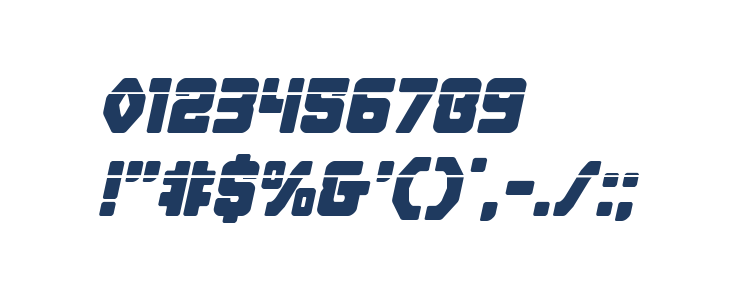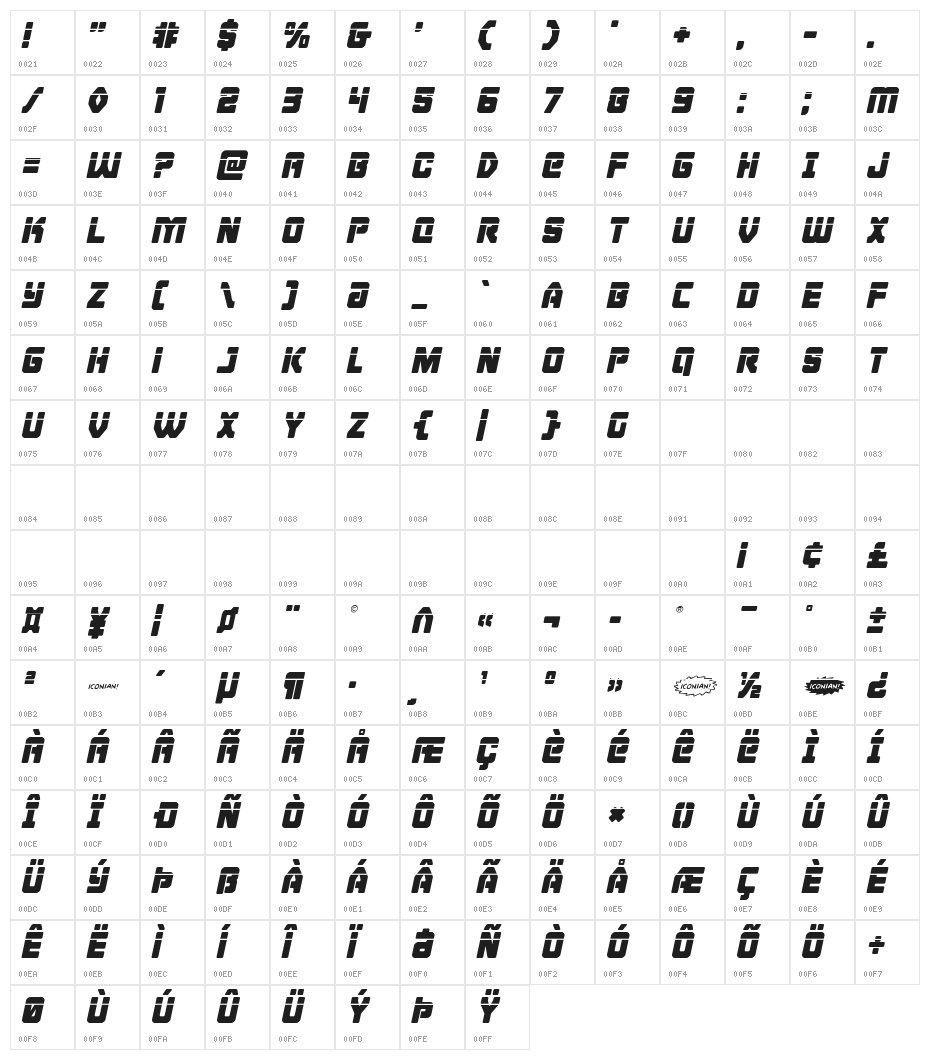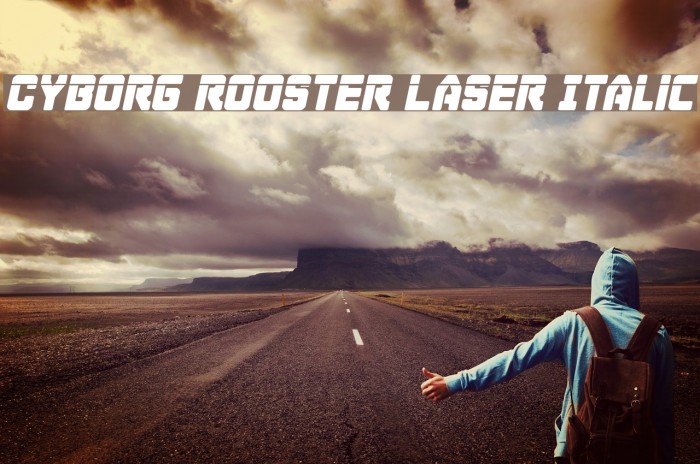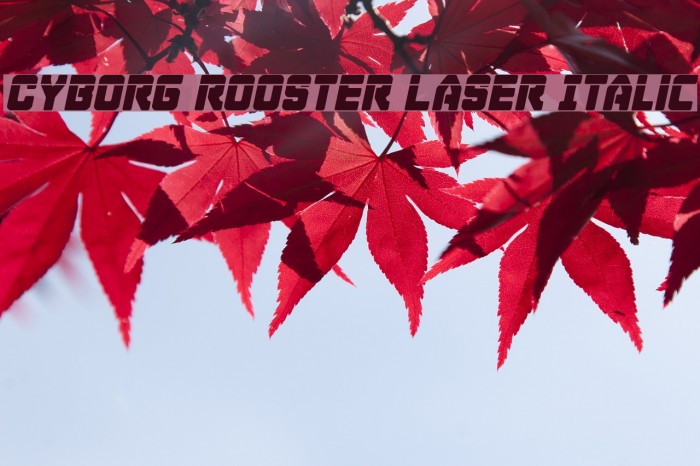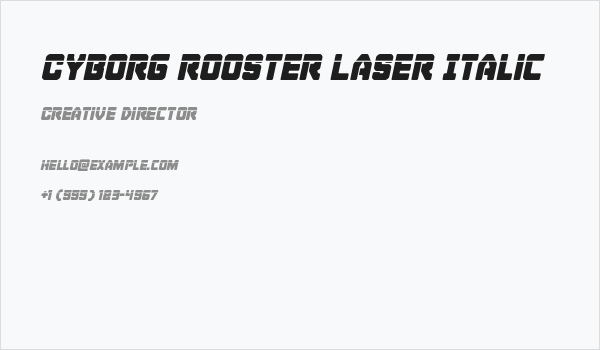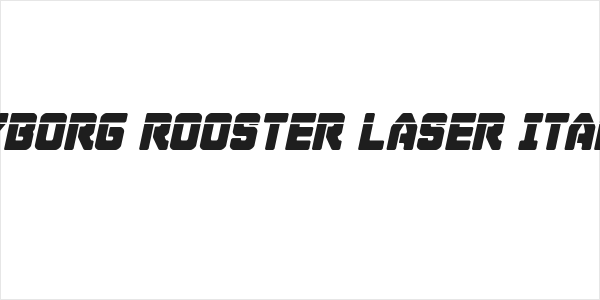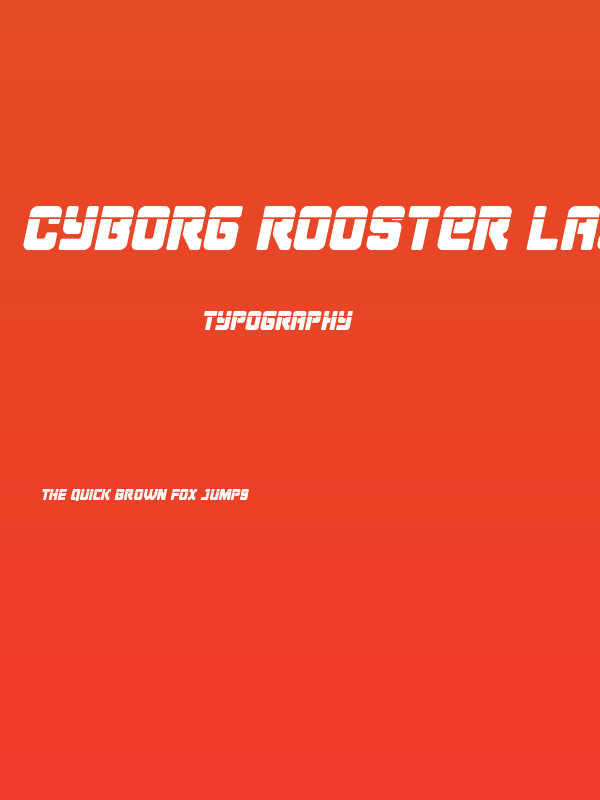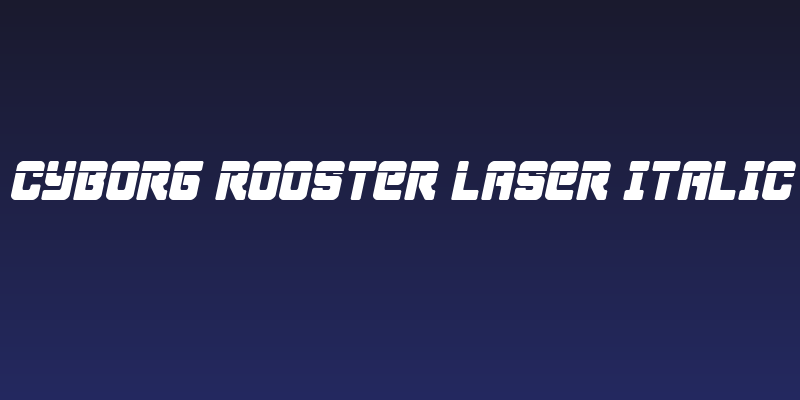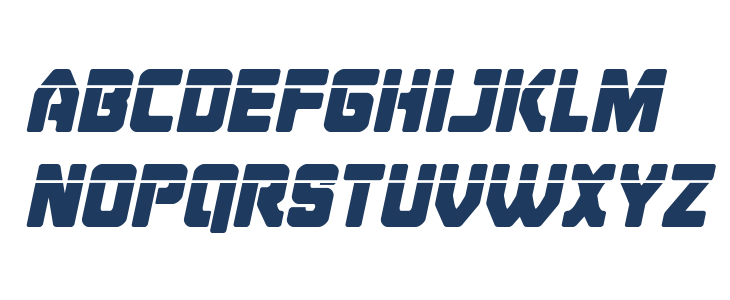
Cyborg Rooster Laser Italic Font
Cyborg Rooster Laser Italic Description
This font features a bold, futuristic design with a strong emphasis on angular, geometric shapes. The characters are italicized, giving a sense of movement and speed. The uppercase and lowercase letters maintain a consistent style, with sharp edges and a slightly condensed form. The numbers and special characters follow the same design principles, ensuring uniformity across all glyphs. The font's overall appearance is modern and dynamic, making it suitable for projects that require a tech-savvy or sci-fi aesthetic.